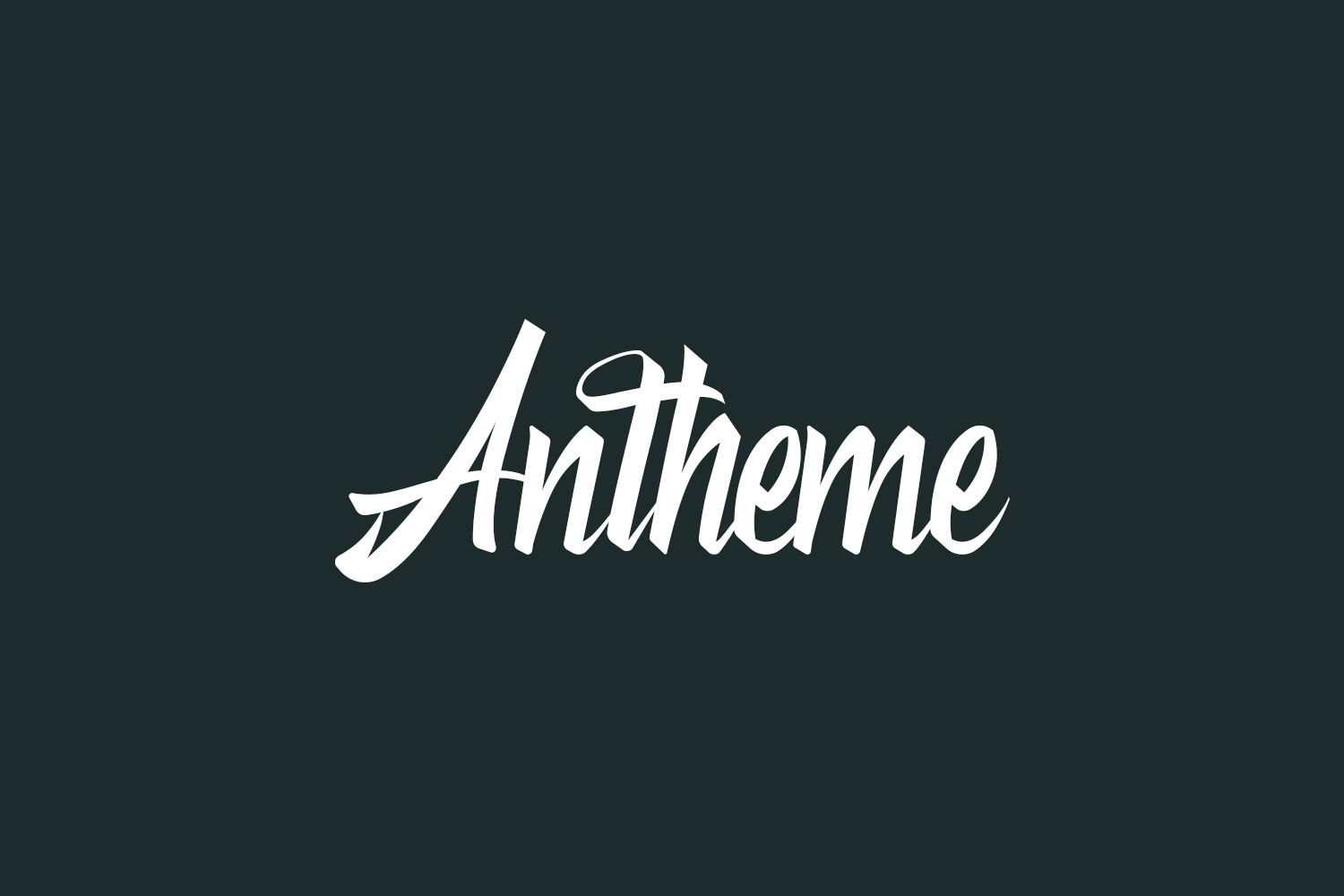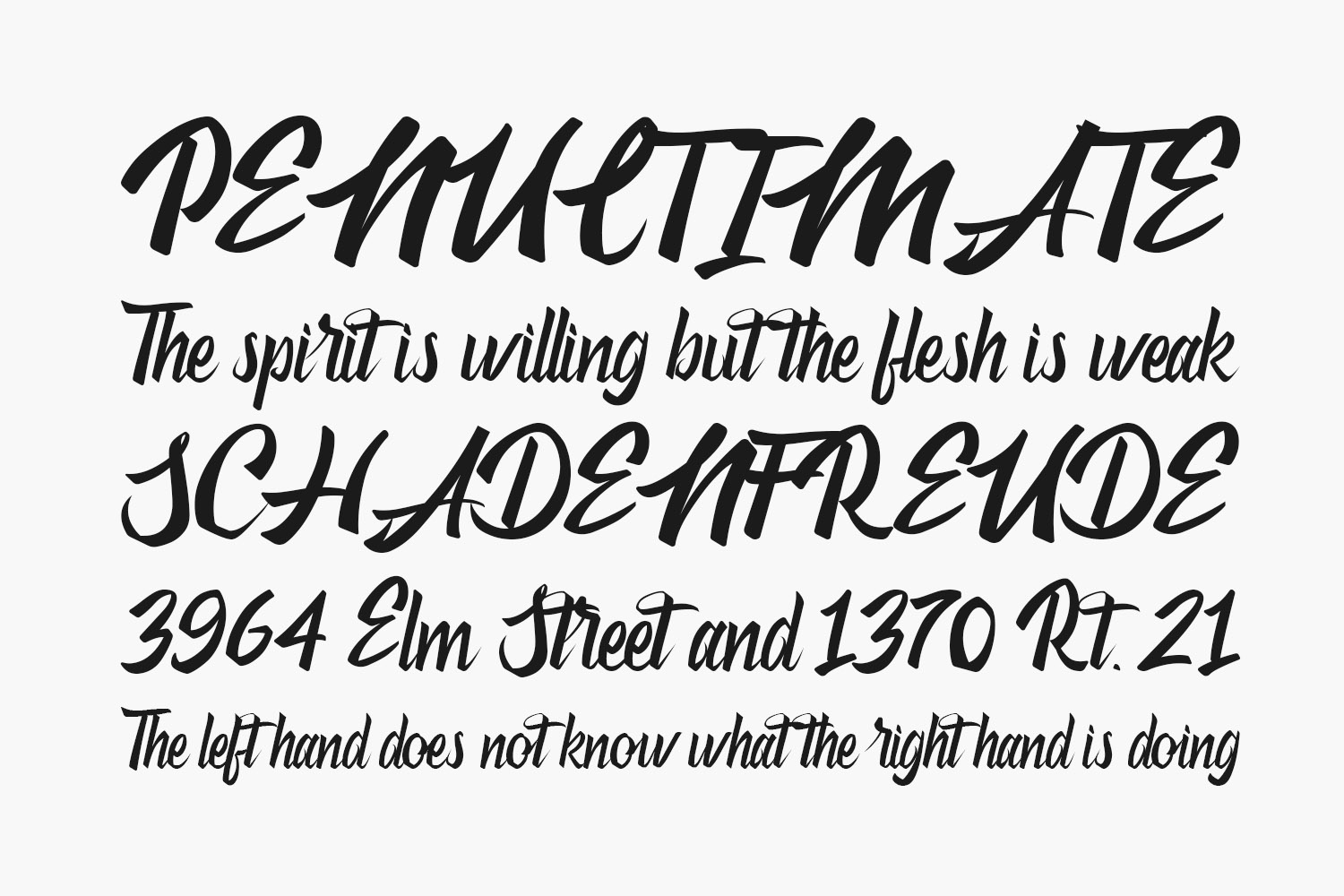
Antheme Free Font feels equally charming and elegant. It looks stunning on wedding invitations, thank you cards, quotes, greeting cards, logos, business cards, and every other design which needs a handwritten touch. Antheme Free Font was designed by Typotopia Studio and is free for personal use only. Please purchase the full version for commercial use.